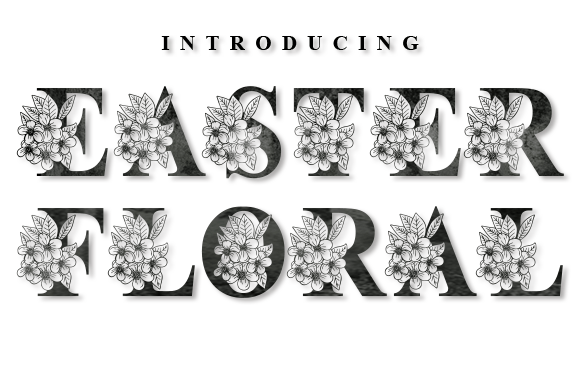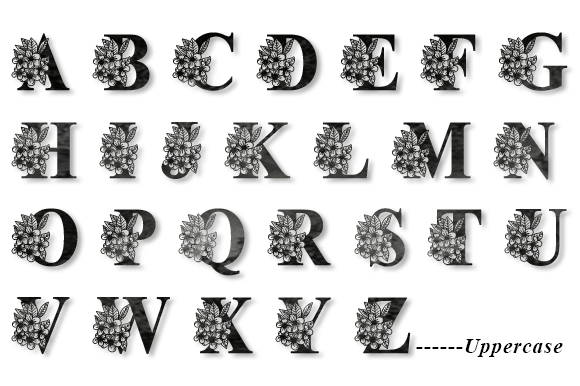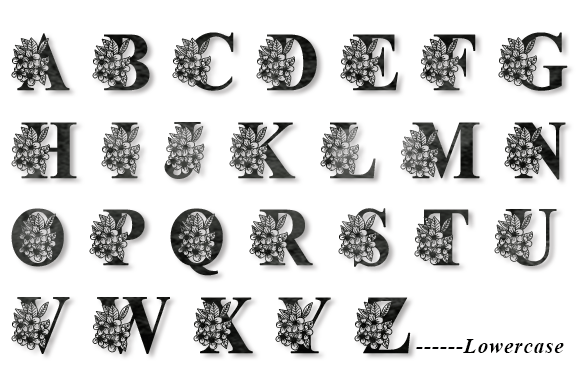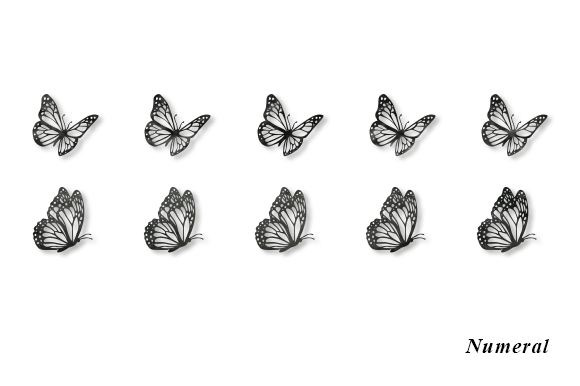
Easter Floral Monogram Font
About the Easter Floral Monogram Font
The Easter Floral Monogram Font offers a perfect balance of form and function for your design needs. Easter Floral Monogram is an elegant decorative font, featuring lovely ornaments. Fall in love with its authentic feel and use it to create gorgeous wedding invitations, beautiful stationary art, eye-catching social media posts, and cute greeting cards.
This font’s elegant, decorative style is ideal for projects requiring a touch of vintage charm. It excels in headlines, short text blocks, logos, and branding materials where its ornate details can shine. Consider it for wedding invitations, stationery, or social media graphics, but avoid using it for body text or long paragraphs; its decorative nature hinders readability in extended use.
Easter Floral Monogram’s personality is undeniably elegant and romantic. Brands focused on luxury goods, artisanal products, or events with a classic feel will find it a strong asset. For a balanced aesthetic, pair it with a clean sans-serif like Montserrat for body text or a delicate script font such as Great Vibes for added flourish. A simple serif like Lora could also provide a grounded counterpoint.
Avoid pairing it with overly bold or geometric fonts, which might clash with its delicate ornamentation. Careful consideration of kerning and spacing will be crucial to ensure its ornate details remain legible and refined.
Easter Floral Monogram Font Example